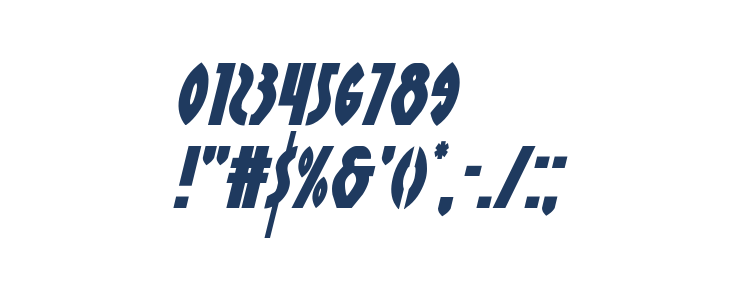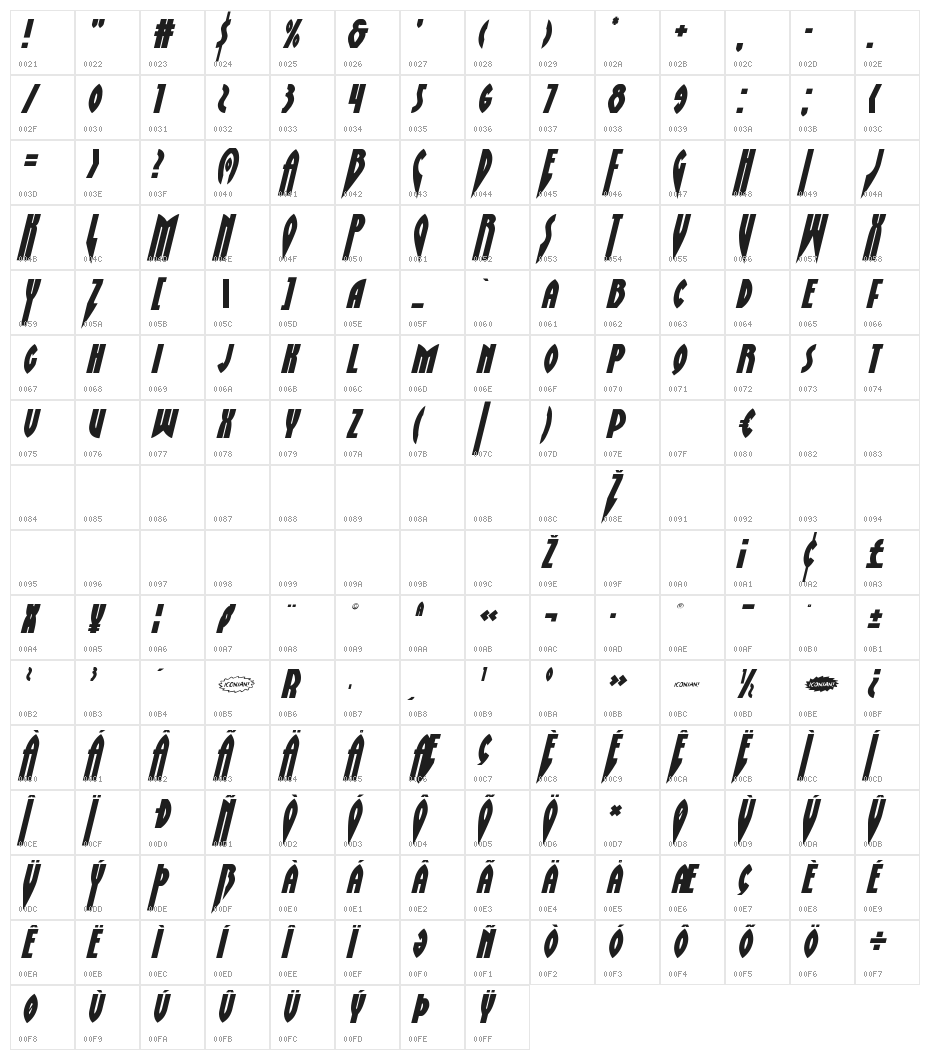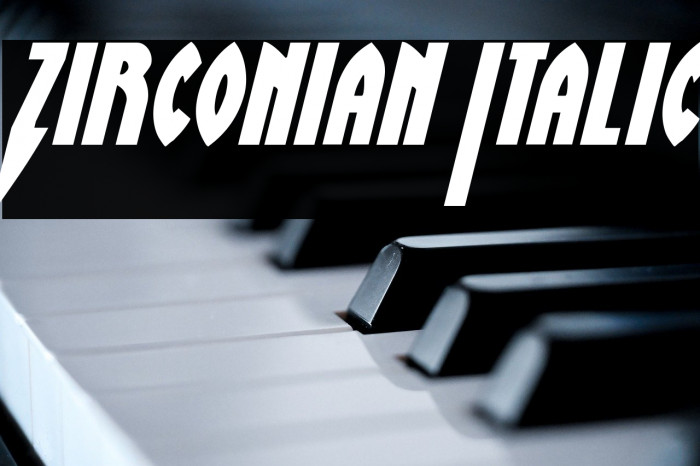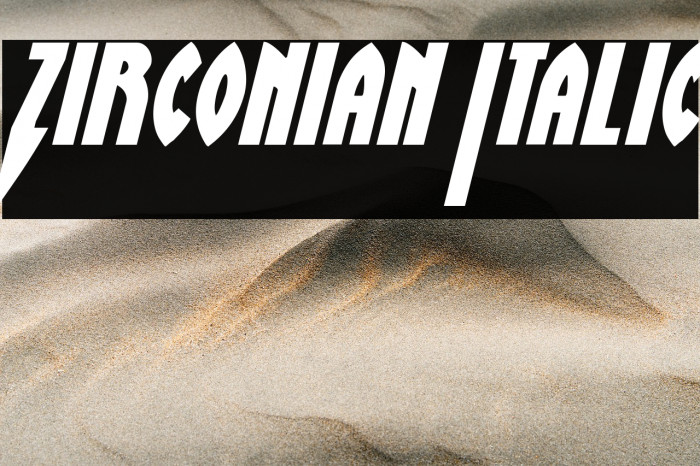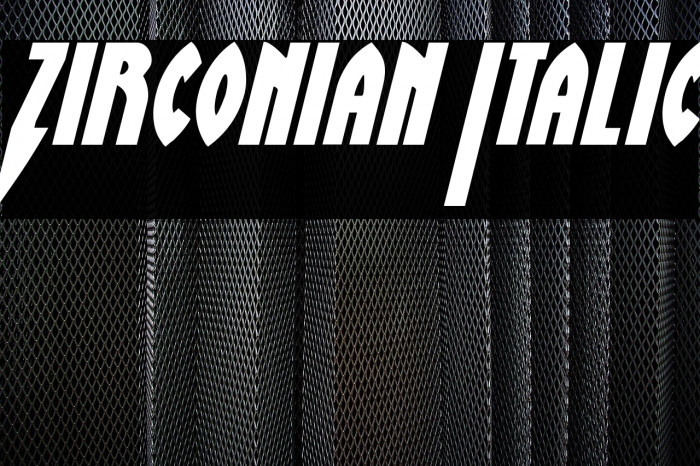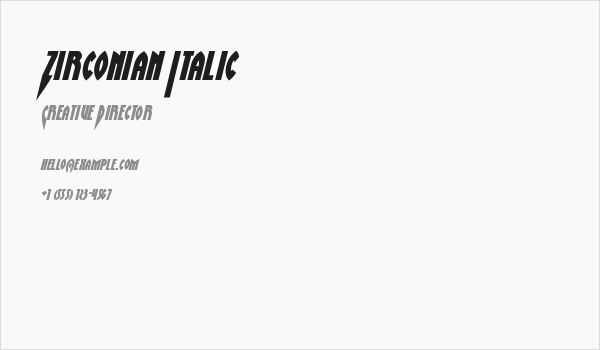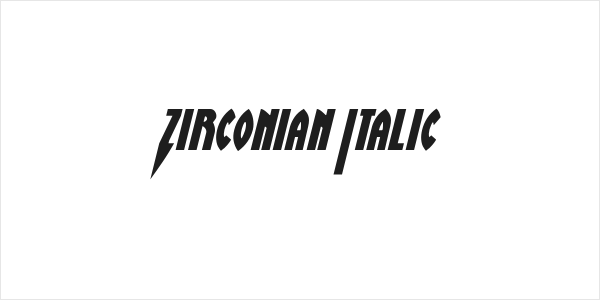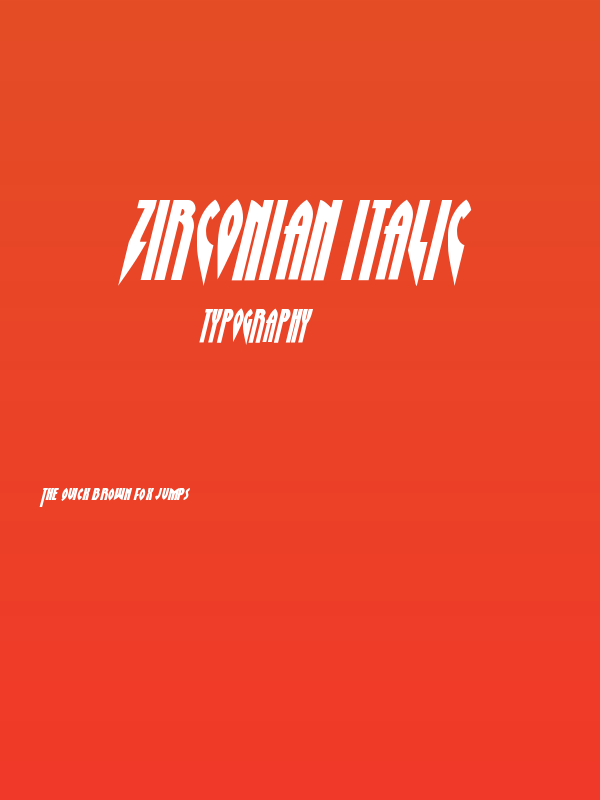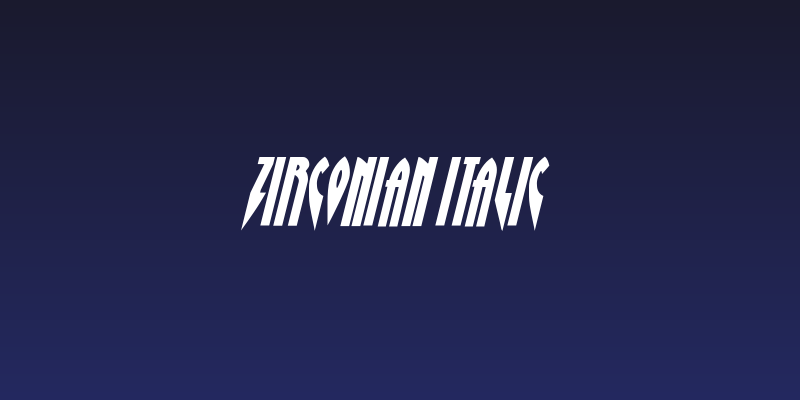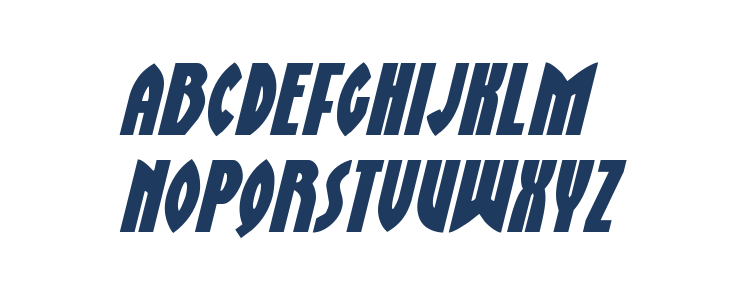
Zirconian Italic Font
Zirconian Italic Description
This font features a bold and dynamic style with a strong italic slant, creating a sense of movement and urgency. The characters are thick and robust, with sharp angles and a slightly condensed form. The uppercase and lowercase letters maintain a consistent weight, contributing to a cohesive and impactful appearance. The numbers and special characters follow the same design principles, ensuring uniformity across all glyphs. The font's high contrast in stroke thickness enhances its readability and visual appeal, making it suitable for attention-grabbing designs.
| Proposed Projects | Ideal for sports branding, action movie posters, dynamic advertisements, and any project requiring a bold, energetic typeface. |